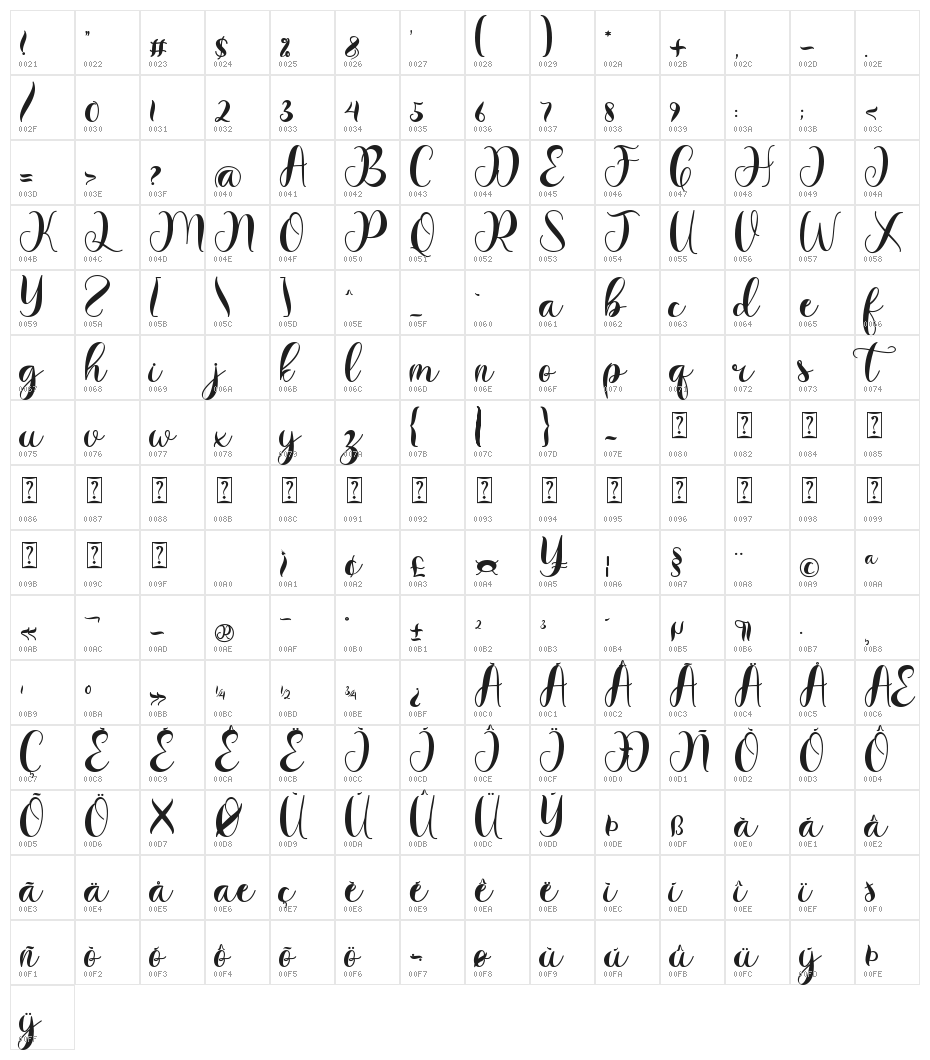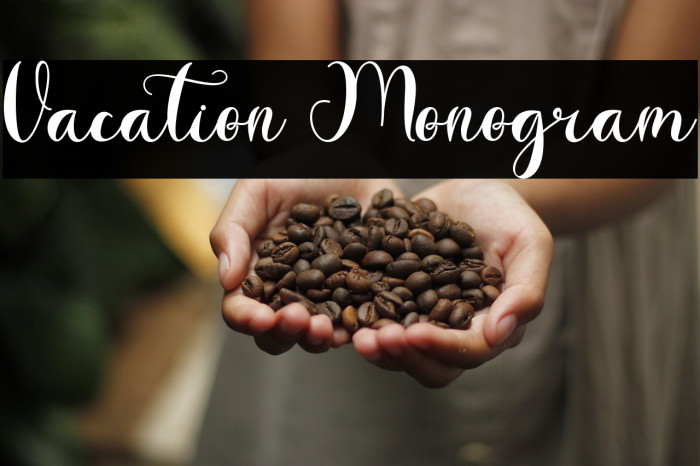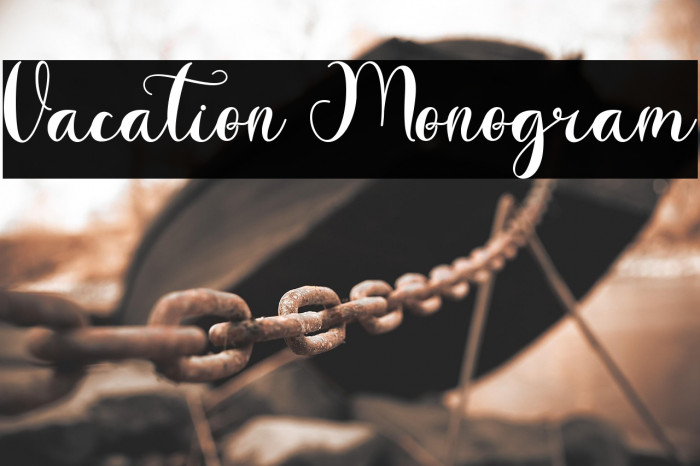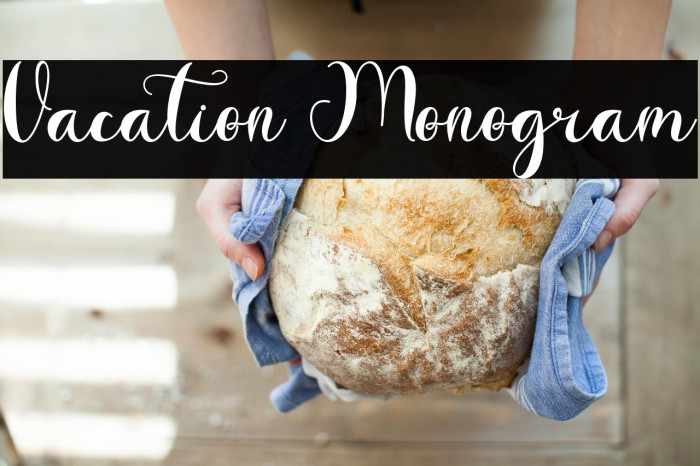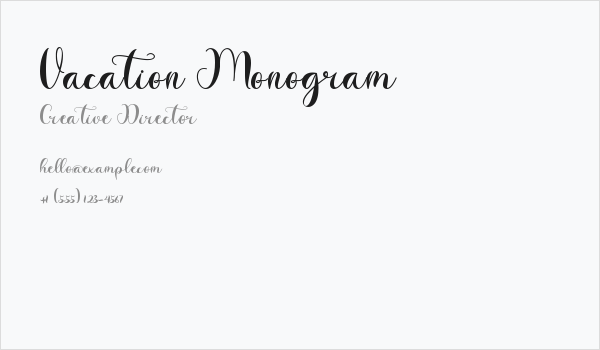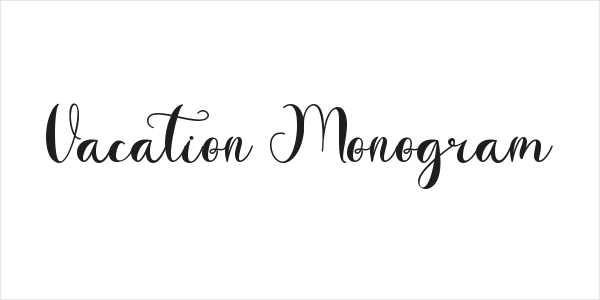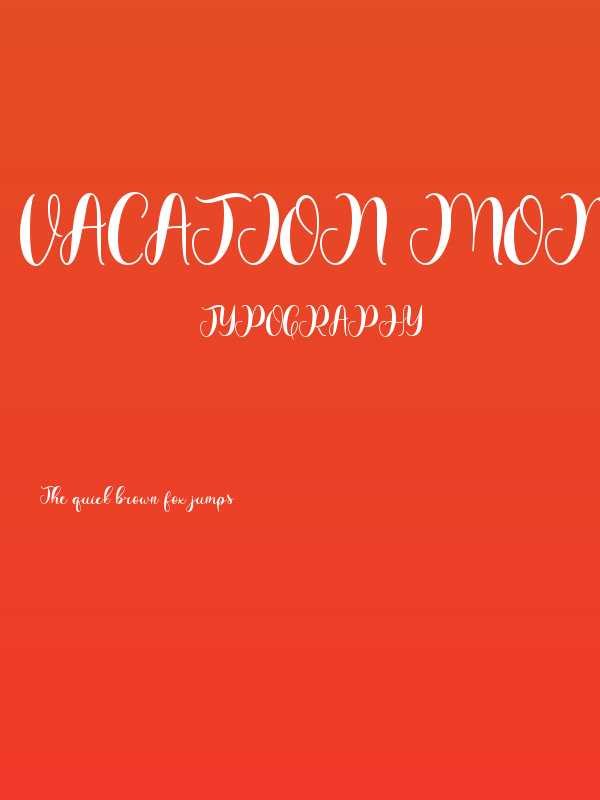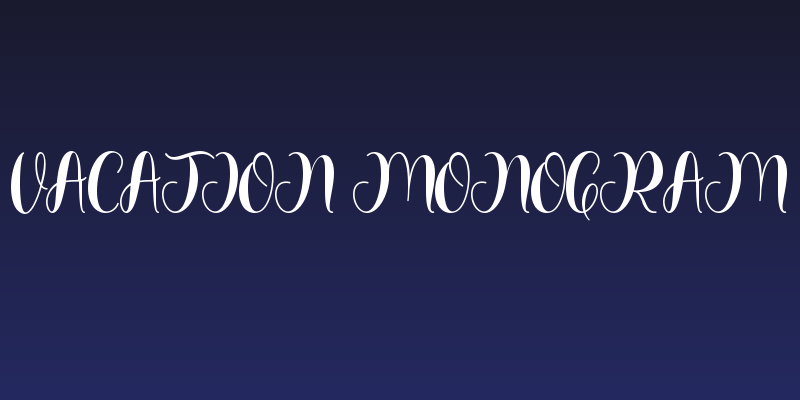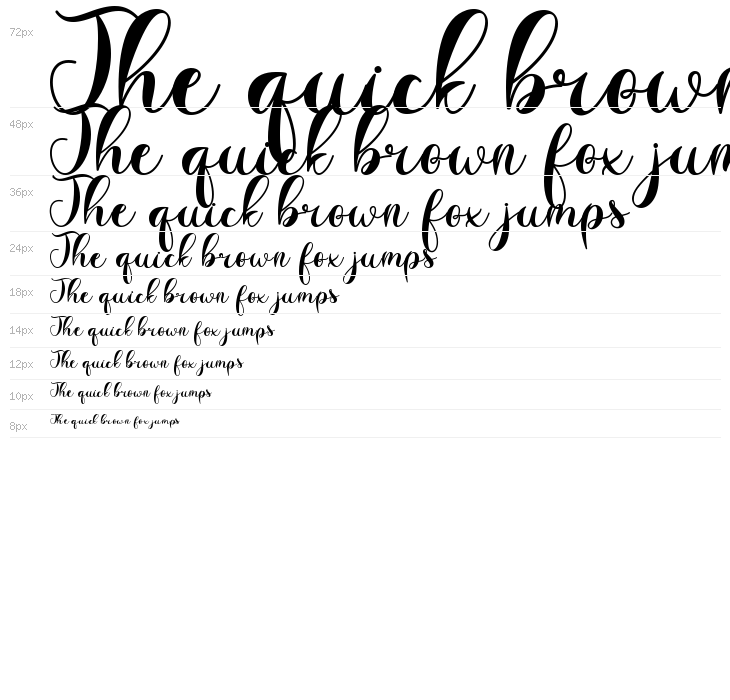
Vacation Monogram Font
Vacation Monogram Description
A decorative script font with elegant, flowing strokes and a calligraphic style, featuring high contrast and ornate swashes.
| Proposed Projects | Wedding invitations, greeting cards, branding. |